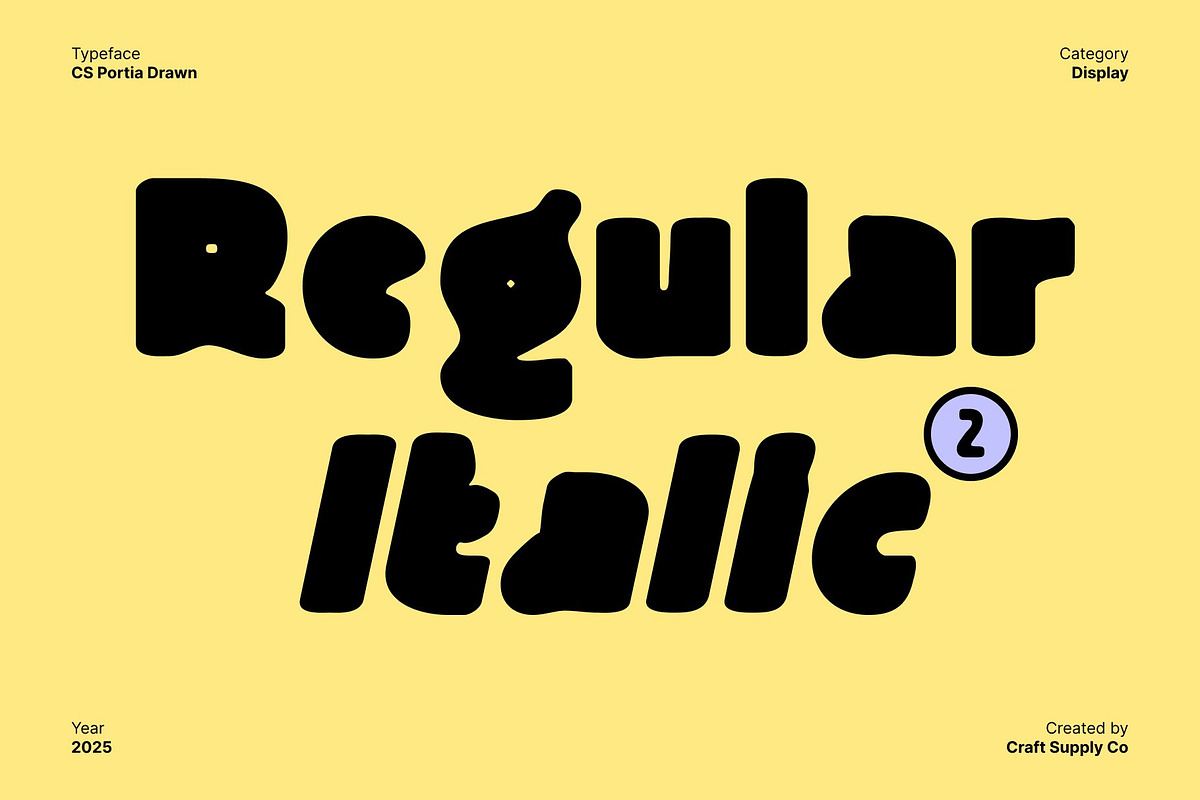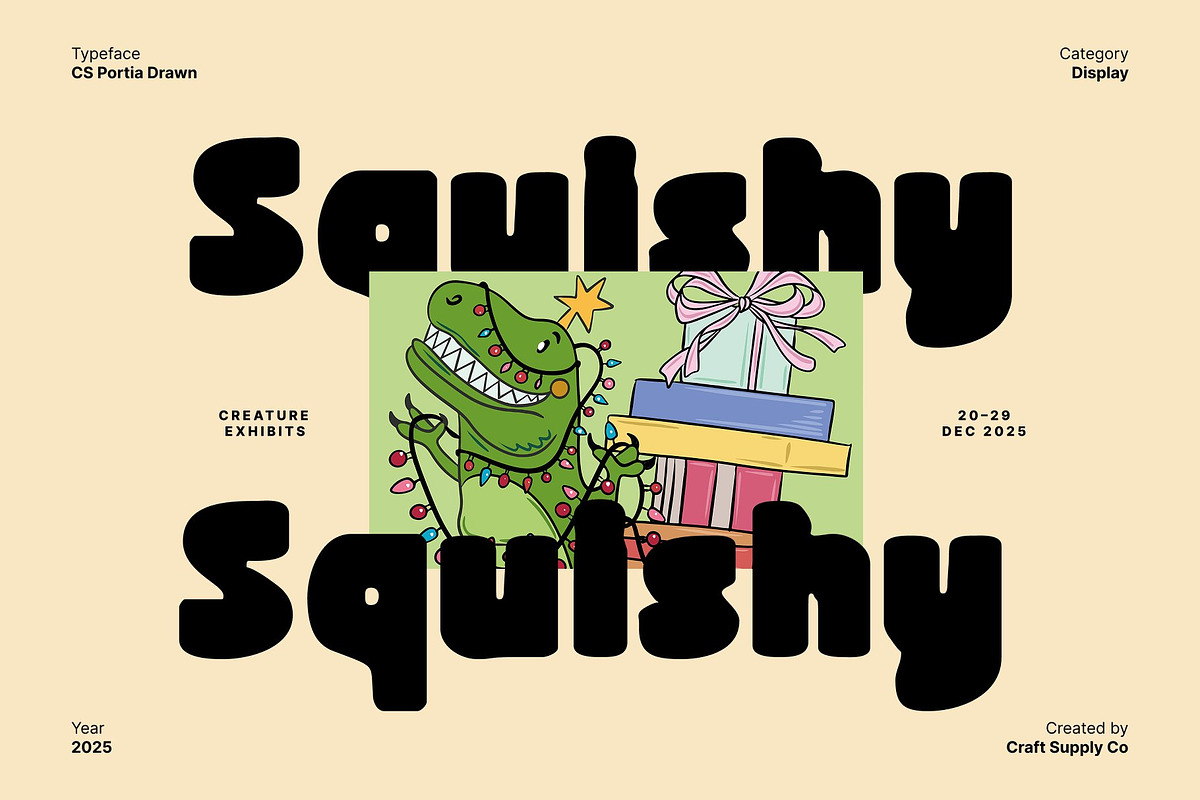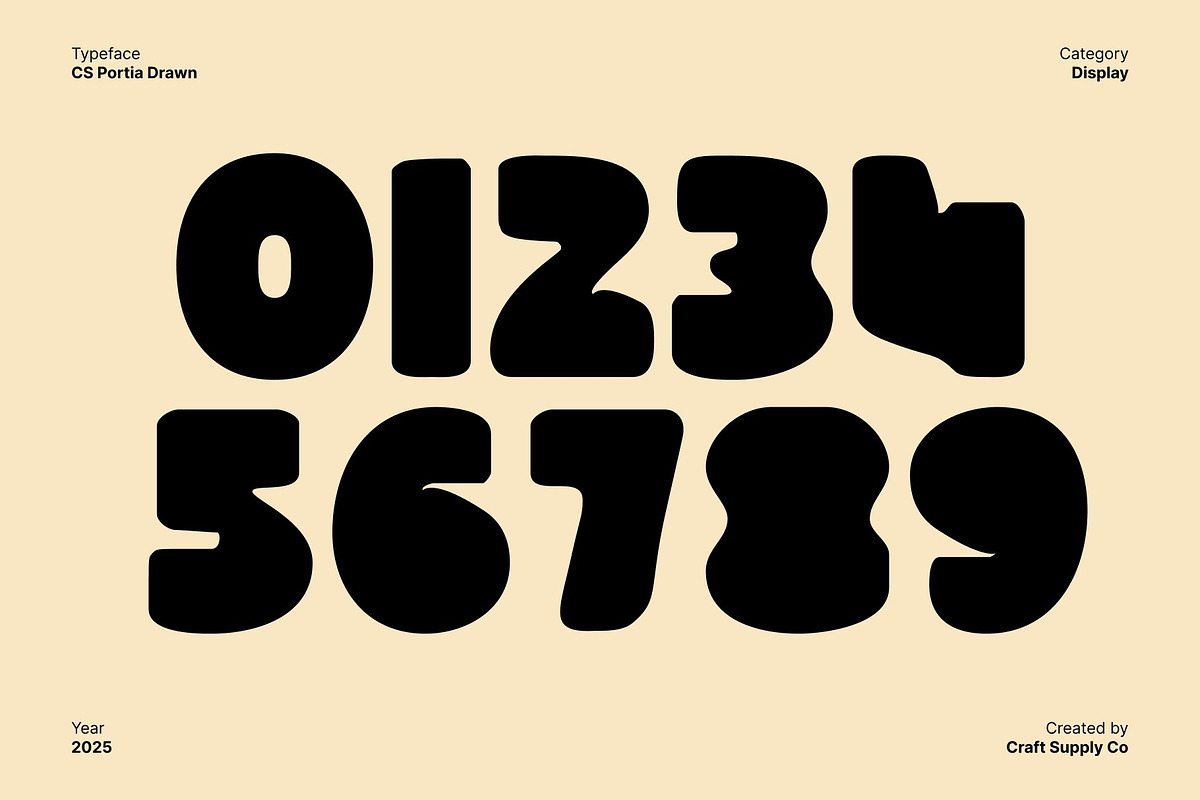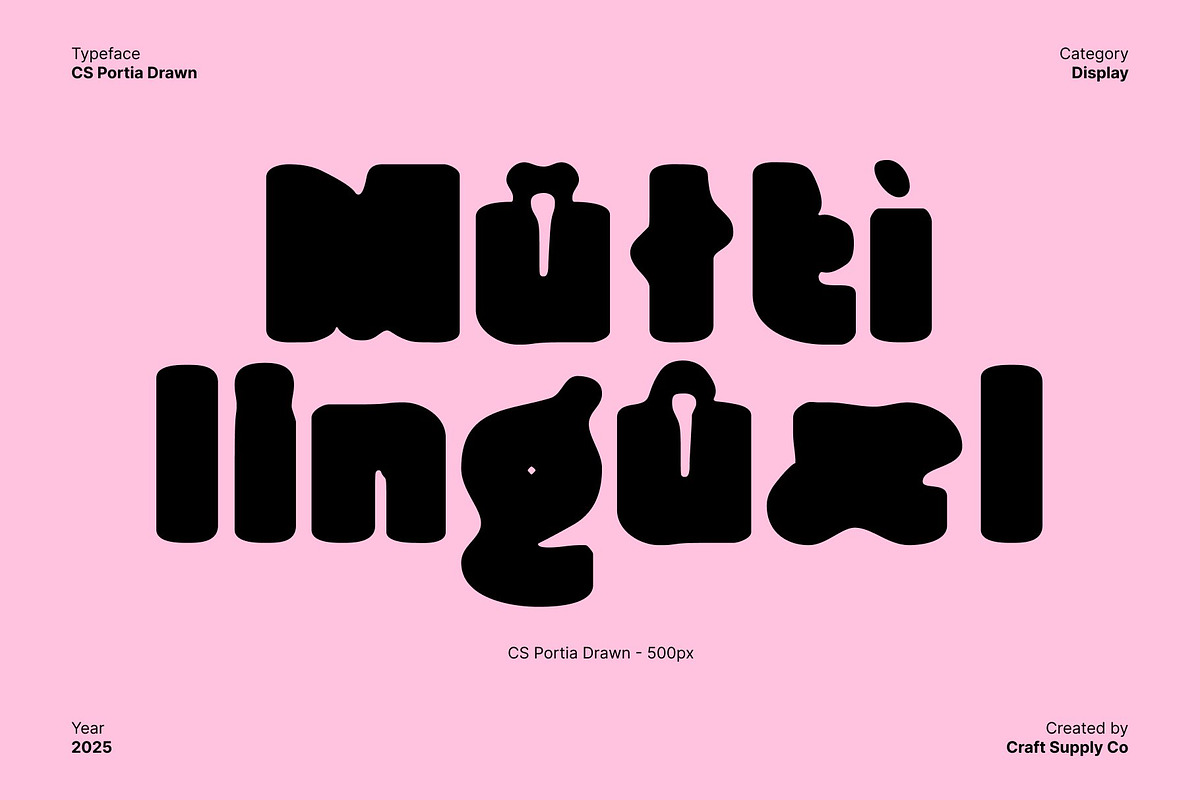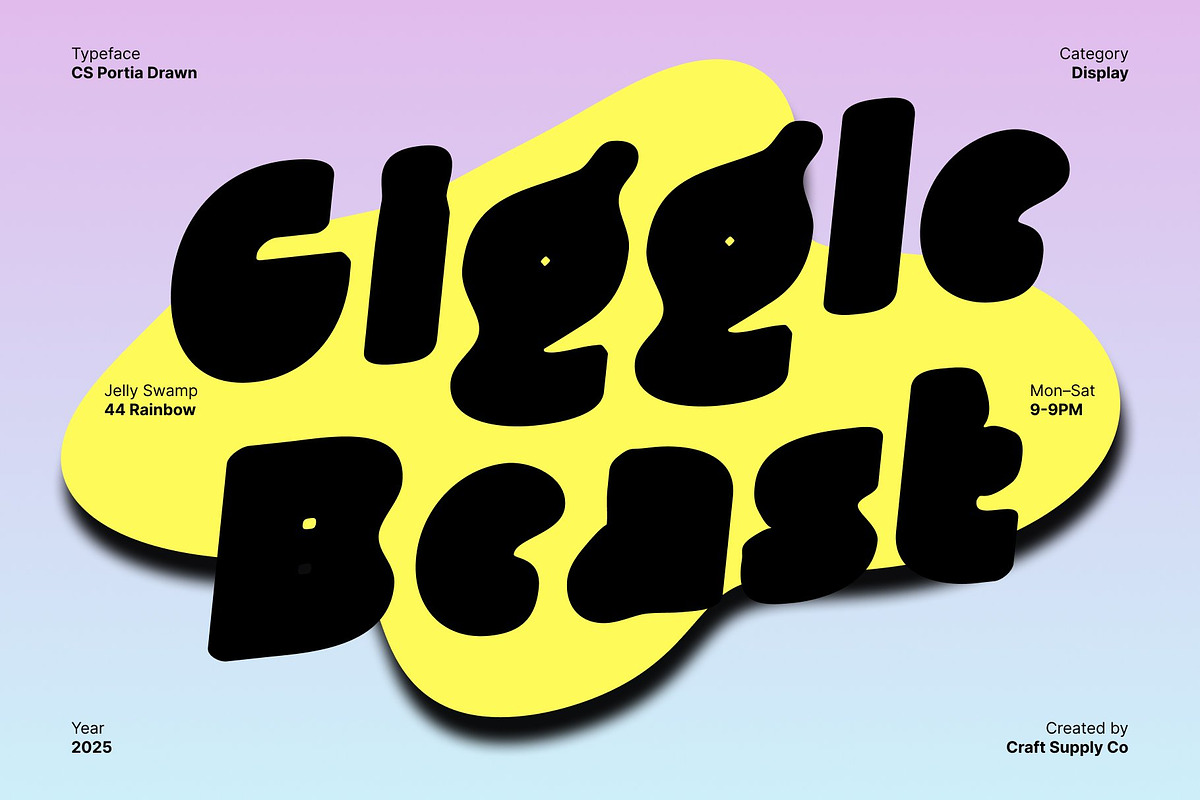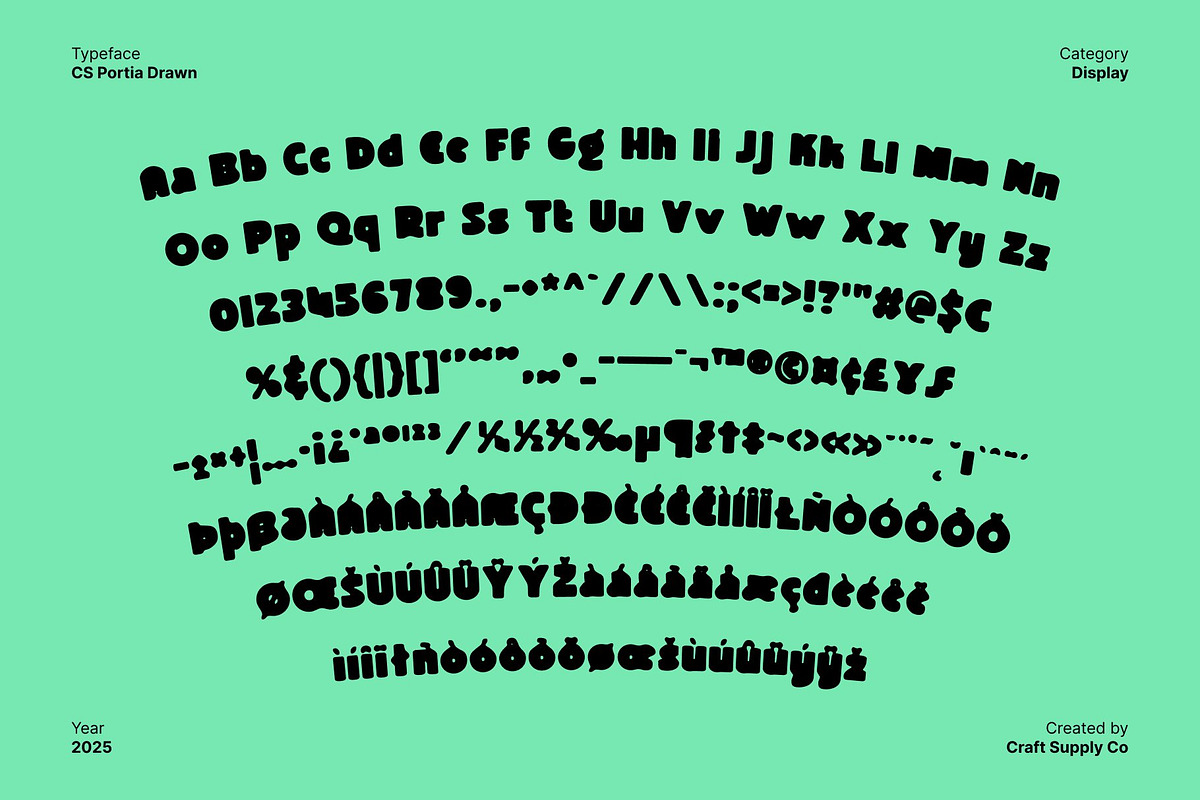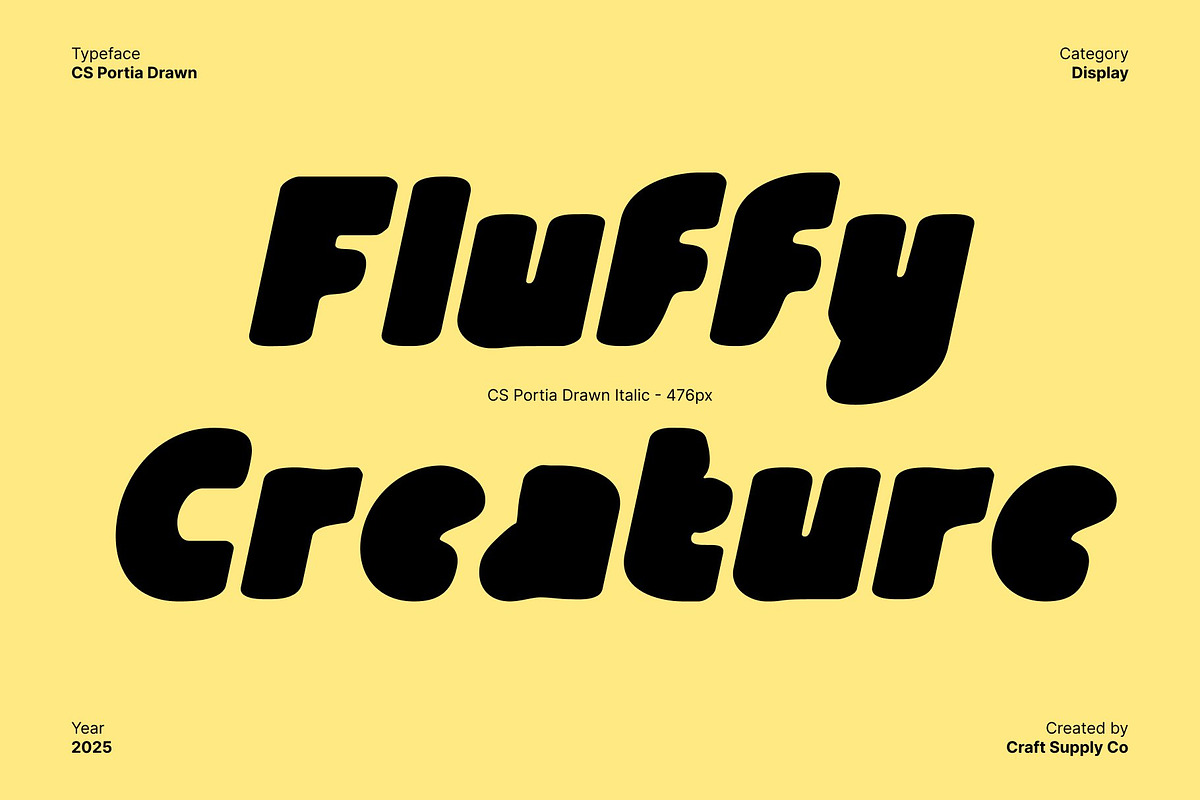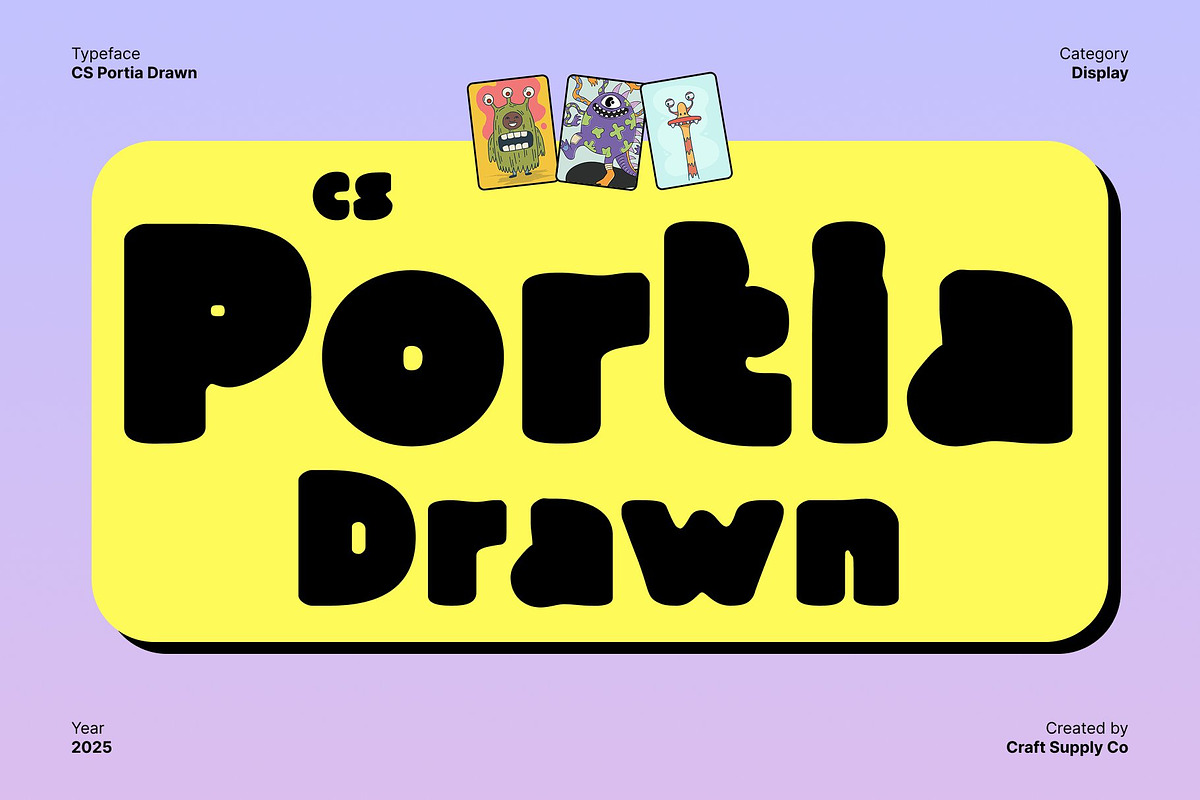
CS Portia Drawn
CS Portia Drawn – Fun Display Font with Artistic Drawn Softness
Energetic, Cheerful Letterforms Playful and lively, this fun display font features bold strokes and approachable, rounded shapes that radiate energy and friendliness. Its well-balanced forms create a visually engaging, youthful aesthetic, perfect for designs that aim to feel casual, fun, and inviting.
Artistic Drawn Effect for Soft, Handcrafted Charm The drawn effect adds an artistic, handcrafted touch to each character, softening the bold strokes and enhancing the font’s approachable personality. This subtle texture gives the font a warm, personal feel, making your designs look expressive, creative, and delightfully organic.
Perfect for Youth Branding, Greeting Cards, and Casual Projects Ideal for playful branding, greeting cards, children’s materials, posters, or any casual creative project, this font brings charm and personality to every layout. Its bold yet soft forms ensure maximum readability while maintaining a cheerful and whimsical tone.
Friendly, Soft, and Visually Engaging By combining bold display shapes with a soft, drawn texture, this font delivers a typeface that feels lively, artistic, and approachable. It’s perfect for designers seeking a playful, handcrafted aesthetic that stands out while maintaining warmth and creativity.